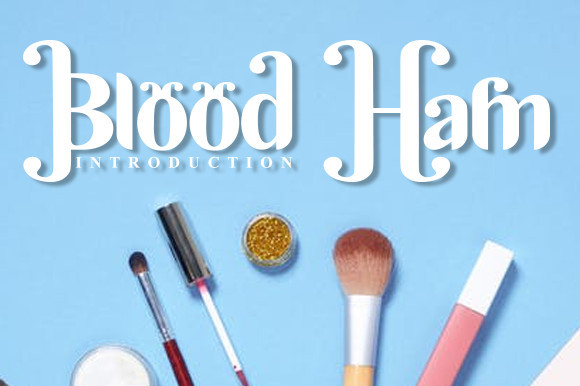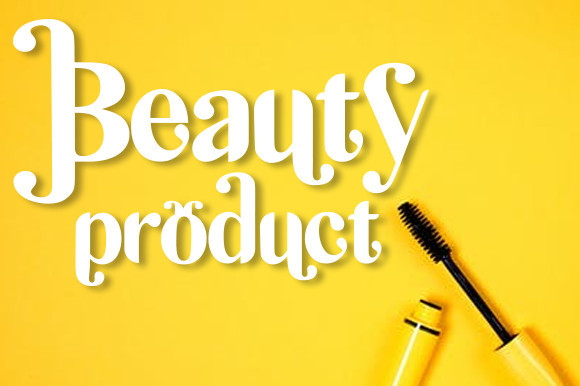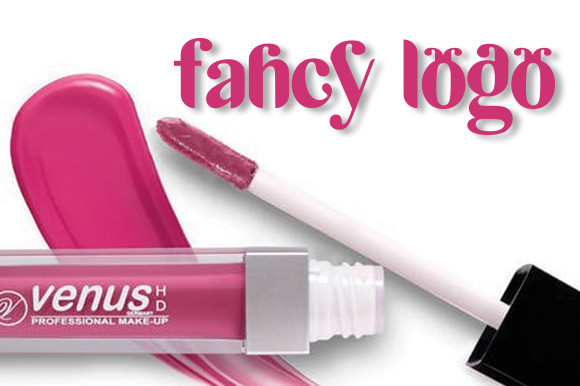
Blood Ham Font
Blood Ham is an original display font. It will elevate a wide range of design projects to the highest level, be it branding, headings, wedding designs, invitations, signatures, logos, labels, and much more!